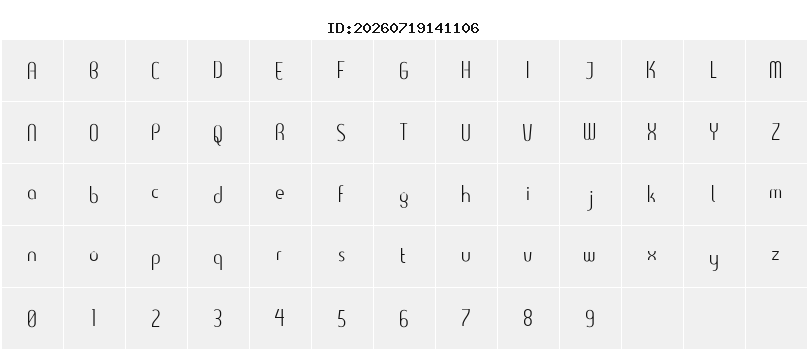
• Font Name: Clearlight
• Designer: NimaVisual
About Clearlight.ttf
Clearlight.ttf is a modern, elegant sans-serif font designed for ultimate readability and visual harmony. Perfect for branding, headlines, web design, and print materials.